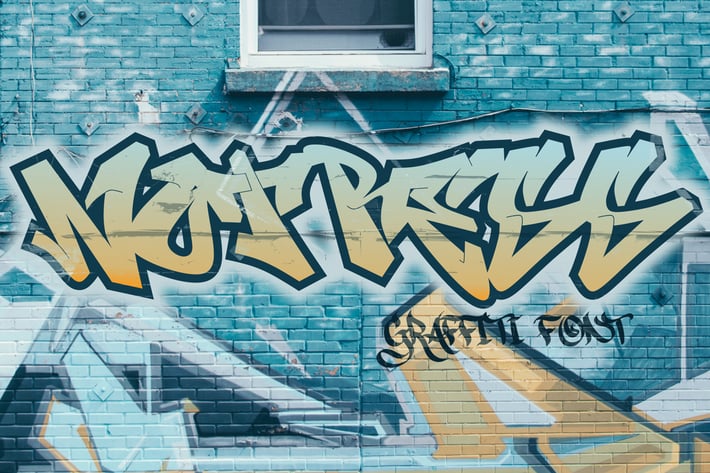
Notress - Graffiti Font
Notress Graffiti is a spectacular decorative font with a graffiti style. It will elevate a wide range of design projects to the highest level, be it branding, headings, wedding designs, invitations, signatures, logotype, wall art illustration, apparel, labels, and much more!